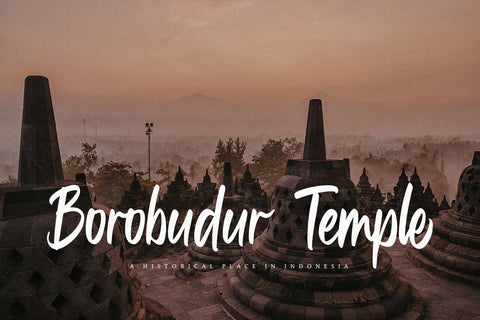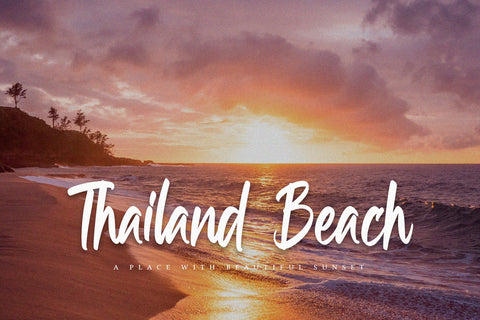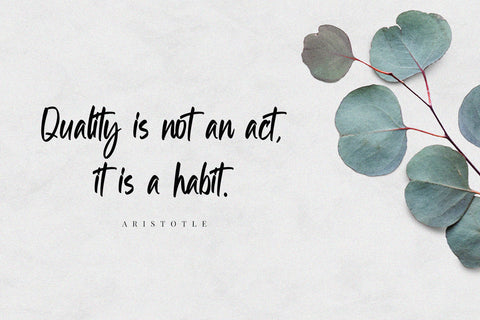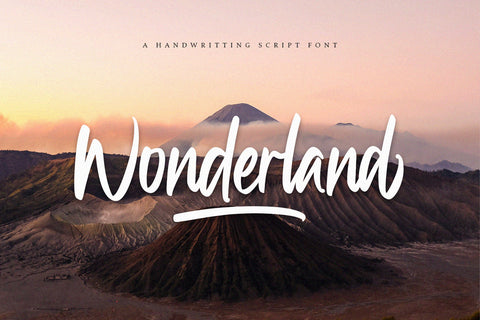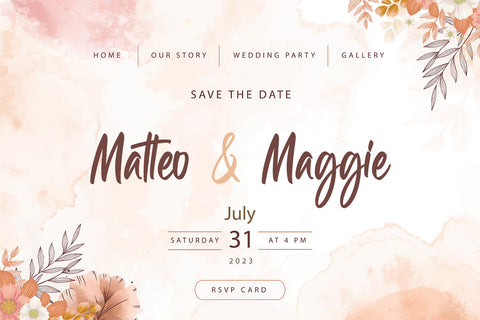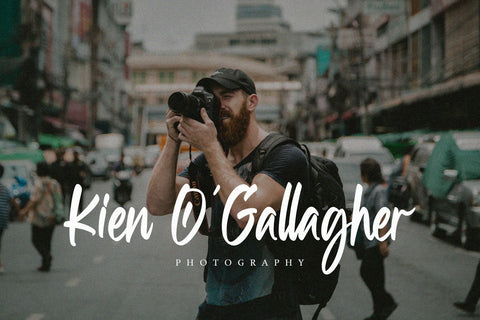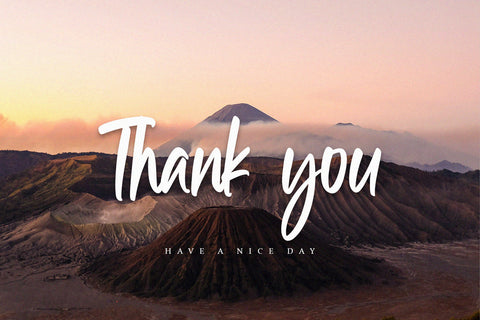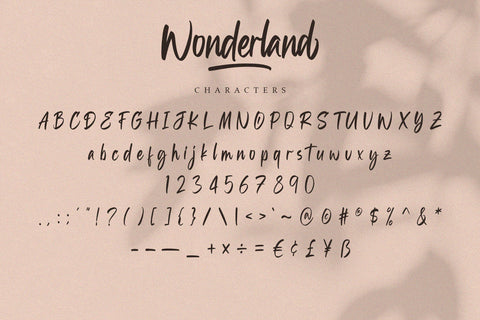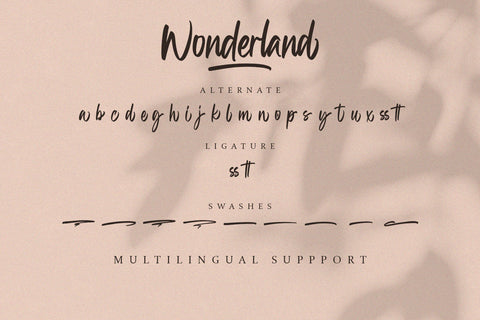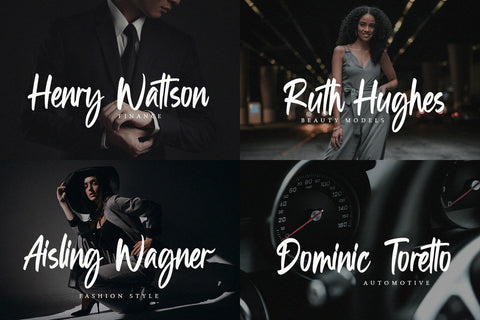
Wonderland - Handwritting Font
Wonderland is an elegant handwritting script font with authentic and casual feels. It will be perfectly used for Branding, Logo Design, Lettering, Logotype, Clothing, Poster, magazine, packaging, posters, shopping bags, t-shirts, book covers, photography, special events and other design project.